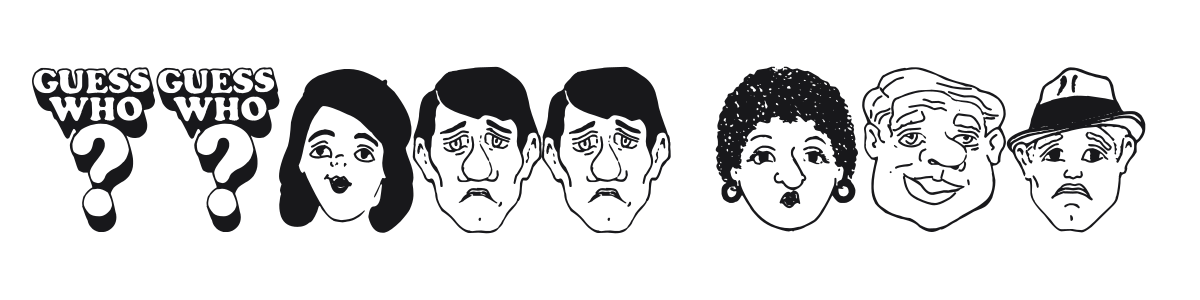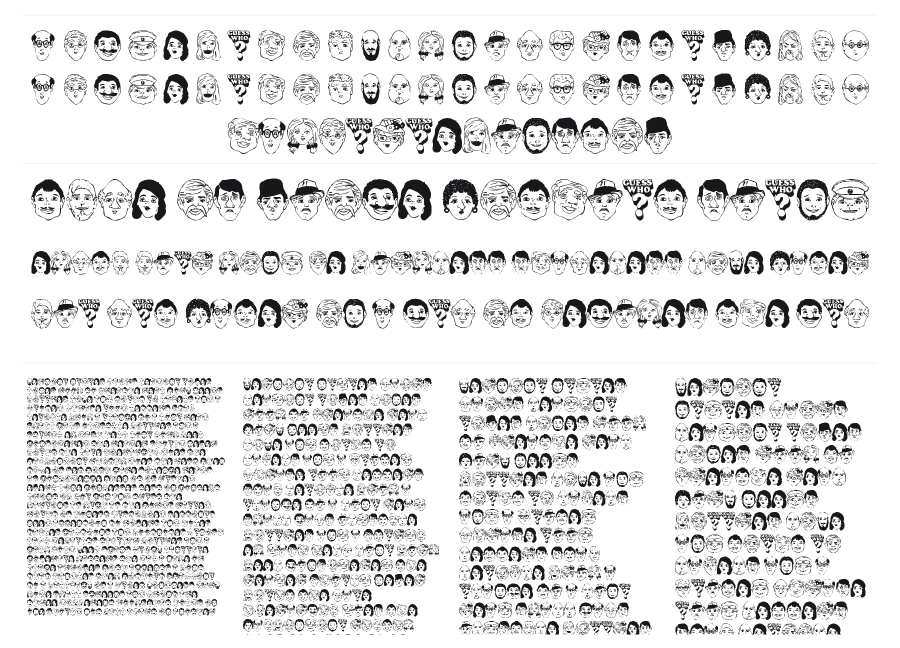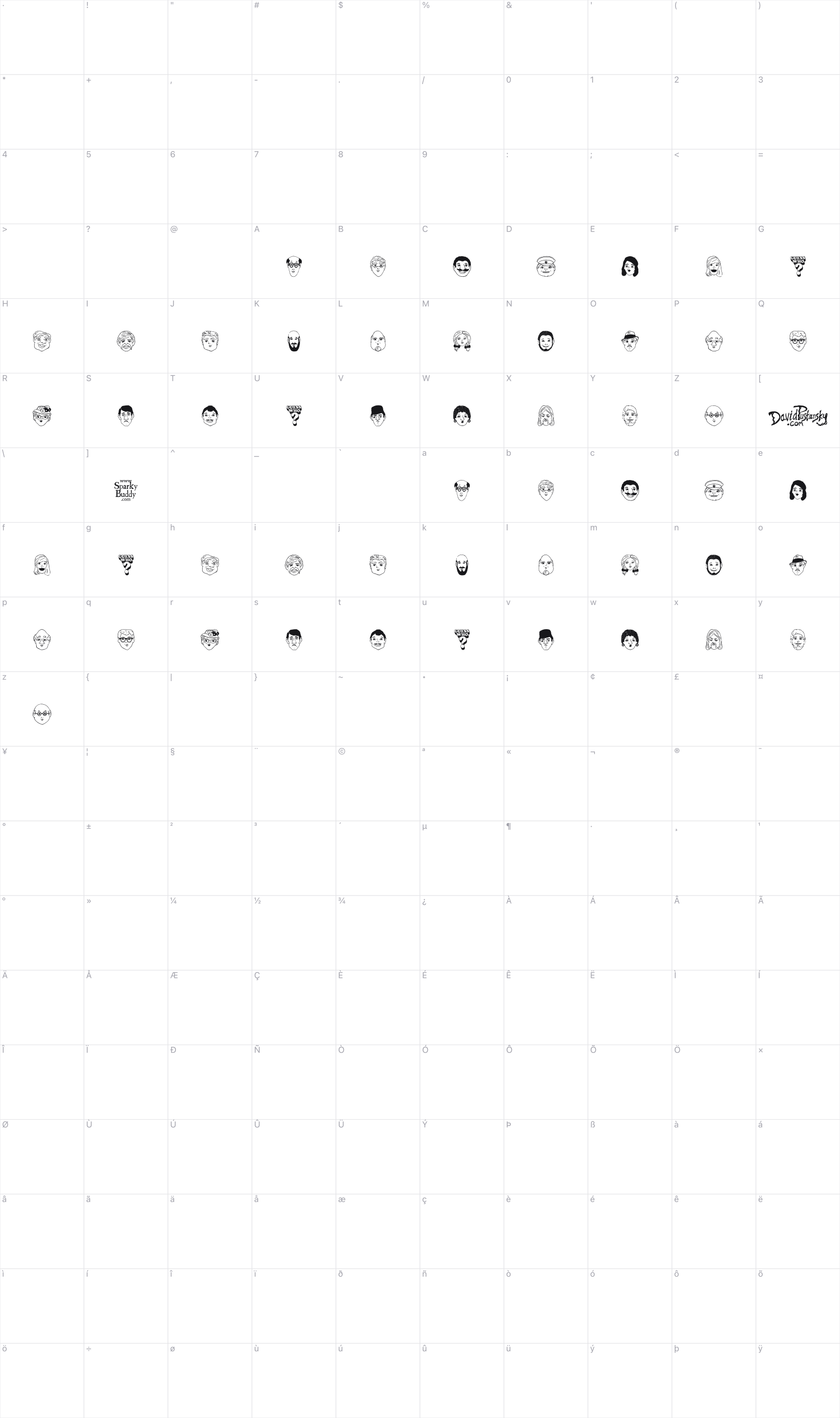
Guess Who
Guess Who is a dingbat font by David Pustansky featuring a set of illustrated cartoon faces inspired by the classic Guess Who board game. Each character is drawn in a bold outline style with distinct features, hairstyles, and accessories that make them immediately recognizable as nods to the beloved franchise. A fun novelty for game-themed projects, fan prints, and playful graphic work.